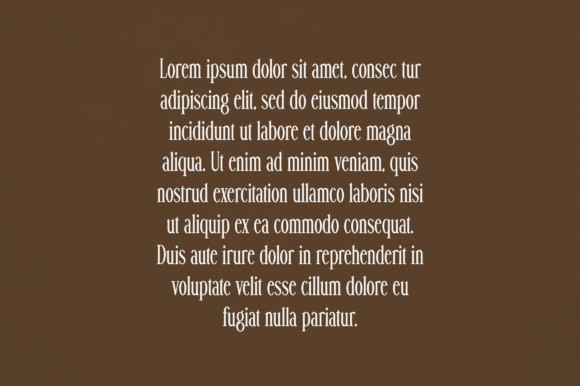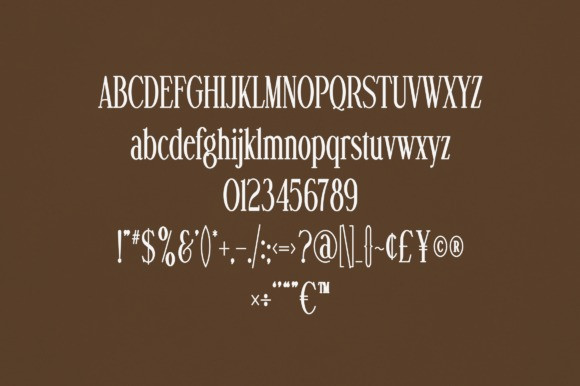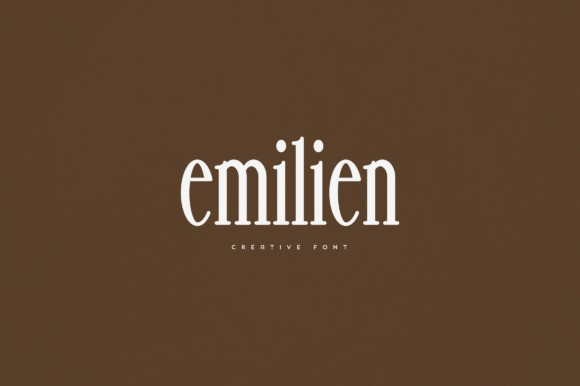
Emilien Font
Emilien Font is an elegant and versatile serif font that will make your typography truly unique! It will enchant every logo, branding, headline, or plain text!